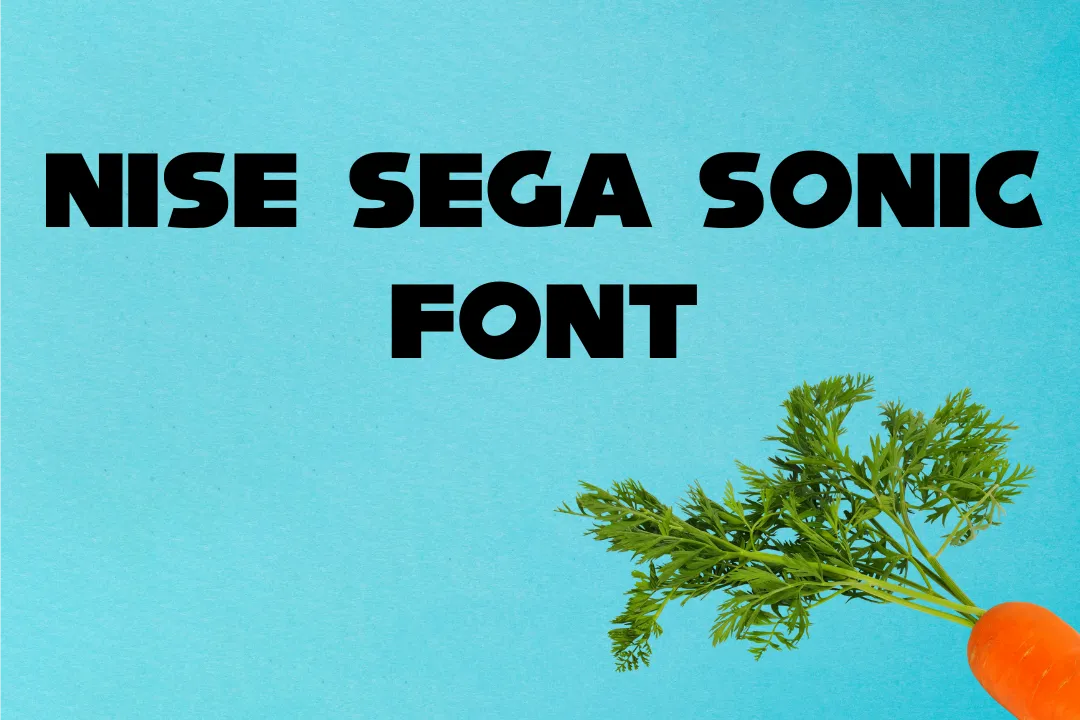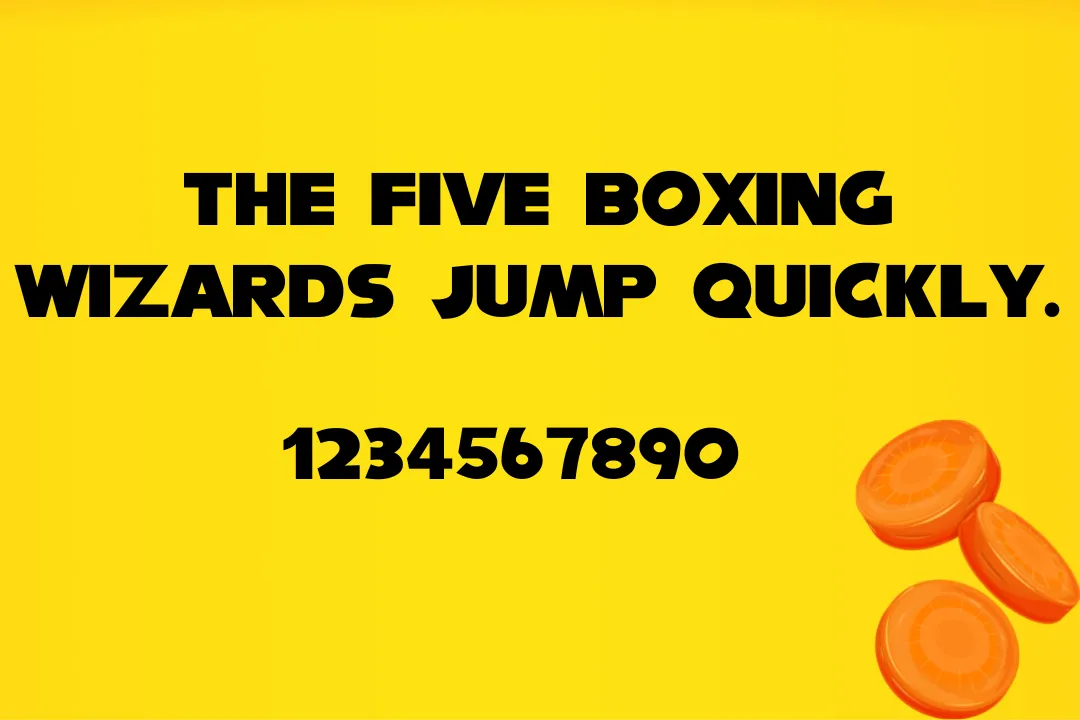
Introducing a scan font known by the name Nise Sega Sonic Font. This texture is very classic and lies in the classification of the display family of textures. HarihariSonic is the original and main developer of this family of fonts.
One main important thing about this family is that it contains 60 unique glyphs and also includes a great number of characters almost two hundred and eighteen. You can also check and explore this family on google.
Uses of Nise Sega Sonic Font
The use of the Nise Sega Sonic typeface is increasing day by day in numerous fields of design. Many developers use this family in their secret and tasks. Mostly for higher brands logos, this family is amazing. In the field of graphic design a great number of designer search for this family for better performance in their projects. For video editing the use of this texture is common.
For more best performance and results you will have to make the strong pairing of this family with Kare Font and enjoy its extraordinary uses. In heavy projects, this typography is very beneficial.
NameNise Sega Sonic Font
DesignerHarihariSonic
TypeDisplay
What is the category of Nise Sega Sonic texture?
This amazing texture falls in the classification of the Display family of fonts.